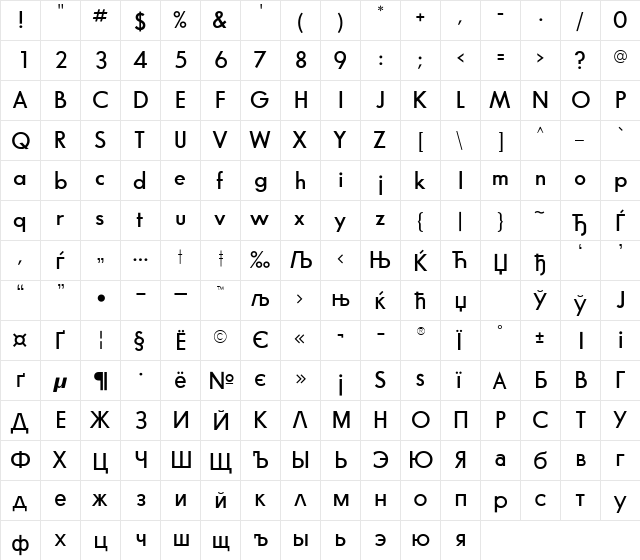
GlasnostDemiboldFWF Regular
Design Context for GlasnostDemiboldFWF Typeface
GlasnostDemiboldFWF offers clean, dependable letterforms without strong stylistic allegiance, making it a practical choice for designers who need flexibility. Its bold stroke weight gives it real presence on the page.